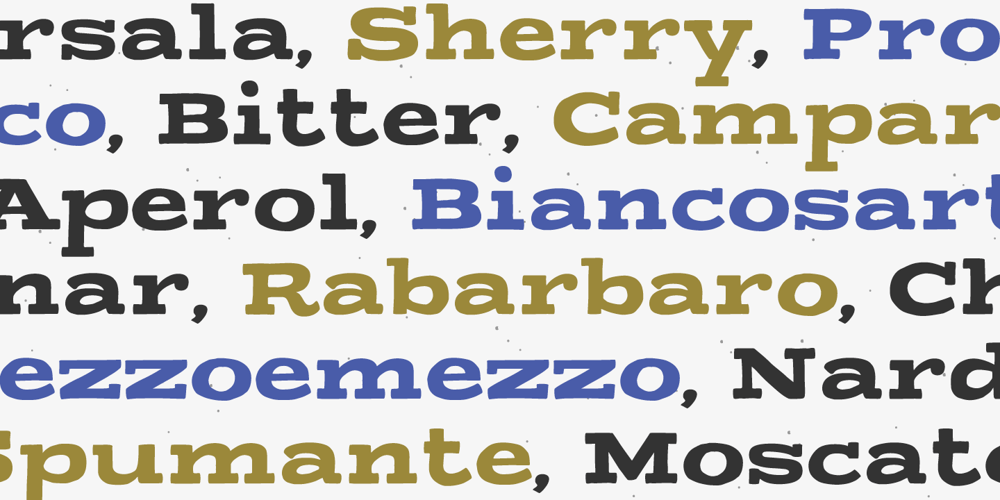
Apero Font Family was designed by Giuseppe Salerno, Paco González and published by Resistenza. Apero contains 8 styles and family package options. A cheerful handwritten font family composed by 8 fonts. 5 slab weights, 2 slab effects and a sans serif. Handmade, friendly and classy, this family is inspired in one of our favorite traditions in Torino, “ L’Aperitivo ”. The social event every afternoon! Before dinner friends meet in the local bar and spend the time together eating, drinking, talking, laughing and eating and drinking again. Handwritten to get a friendly and human feeling. Letterforms specially designed to take the charming mood of this event. The sans serif has been inspired in some letterings found in old local liquor labels. Check out also ‘Modern Love Slanted’ Turquoise Nautica